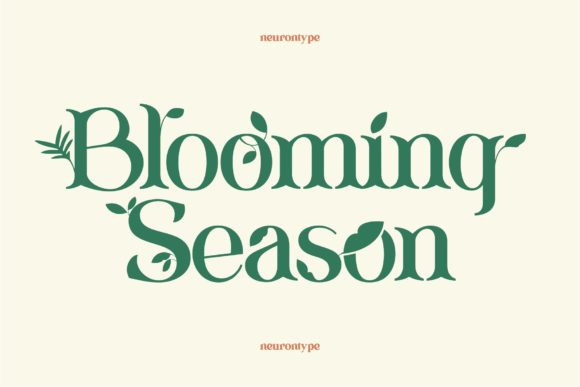
The Blooming Season Font: A Beautiful Addition to Your Spring Crafting Projects
As a designer, I’ve had my fair share of moments where I’ve struggled to find the perfect font for a project. But one font that has recently caught my attention is the Blooming Season font. This beautiful display font features cute characters and amazing flower-themed elements that are sure to brighten up all your spring crafting projects!
A Design Moment of Frustration and Delight
I recall working on a project for a client who wanted a whimsical and playful design for their spring-themed branding. I spent hours scouring the internet for the perfect font, but nothing seemed quite right. That was until I stumbled upon the Blooming Season font. Its unique blend of cute characters and flower-themed elements instantly caught my eye, and I knew I had found the perfect fit for my client’s project.
• ✨ The font’s unique and playful design makes it perfect for spring-themed projects.
• 🌼 The font features a wide range of flower-themed elements that add a touch of whimsy to any design.
• 💻 The font is highly versatile and can be used for a variety of projects, from branding to crafting.
While the Blooming Season font is a beautiful addition to any design, there are a few small quirks to be aware of. ⚠️ Some users have reported that the font can be a bit finicky when it comes to kerning, so be sure to adjust the spacing to get the best results. 🤔 Additionally, the font’s playful design may not be suitable for more formal or professional projects.
The Designer Inspiration Behind the Blooming Season Font
The Blooming Season font was designed with the intention of capturing the whimsy and playfulness of spring. The designer, who is passionate about creating unique and beautiful fonts, drew inspiration from the beauty of nature and the joy of the season. The result is a font that is both visually stunning and highly versatile.
Q: What is the Blooming Season font?
A: The Blooming Season font is a beautiful display font featuring cute characters and amazing flower-themed elements.